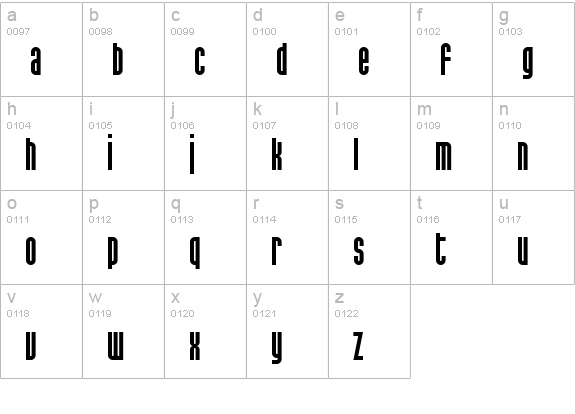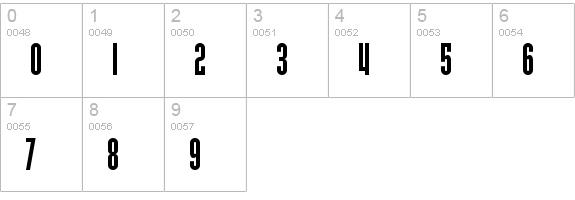
SF Port McKenzie Font Details
SF Port McKenzie is a versatile and elegant font that effortlessly blends modernity with a touch of classic sophistication. This font is the perfect choice for any design project that requires a sleek and polished appearance. With its clean lines and balanced proportions, SF Port McKenzie exudes professionalism and refinement. What sets SF Port McKenzie apart is its unique ability to adapt to various design styles and contexts. Whether you're working on a corporate branding project, a website design, or even a print publication, this font will effortlessly elevate your work to new heights. Not only does SF Port McKenzie possess a captivating aesthetic, but it also boasts exceptional legibility. Each character is meticulously crafted and thoughtfully designed, ensuring maximum clarity and ease of reading. Whether used in large headings or small body text, this font retains its readability and impact, making it a perfect choice for any project. One of the best aspects of SF Port McKenzie is that it is freely available to download at FontsMarket.com. This means that you can access this exceptional font without any financial burden, allowing you to create stunning designs without breaking the bank. So why wait? Give your projects a professional edge and download SF Port McKenzie today!